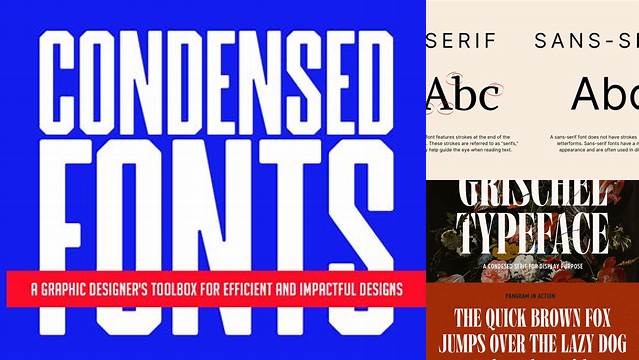
Top Free Condensed Serif Fonts For Designers
Choosing the right font can make or break a design. For projects needing a touch of elegance with space-saving efficiency, condensed serif fonts are a go-to. Luckily, you don't always have to shell out cash for great typography. Let's dive into some of the best free condensed serif fonts that can elevate your designs without emptying your wallet.
Condensed Serif Fonts: An Overview
Before we jump into the specifics, let's clarify what condensed serif fonts are and why they're so useful. Serif fonts are characterized by the small decorative strokes (serifs) at the end of letterforms. They often convey a sense of tradition, authority, and refinement. The term "condensed" refers to the narrower width of the letters compared to a regular typeface. This makes condensed serif fonts ideal for situations where space is limited, such as headlines, captions, and body text in magazines or newspapers. They allow you to fit more text into a smaller area without sacrificing readability. Ultimately, choosing the right font involves understanding the context of your project, the message you want to convey, and the overall aesthetic you're aiming for. Experiment with different options, and don't be afraid to mix and match fonts to create a unique and visually appealing design.
1. Free Condensed Serif Fonts for Headlines
Headlines need to grab attention quickly, and condensed serif fonts can help you do just that. The narrower letterforms allow you to create impactful headlines even in tight spaces. Look for fonts with strong, bold strokes and clear, legible letterforms. Some great options include Oswald (though technically sans-serif, it often gets used in similar contexts) and Bebas Neue (also sans-serif but tall and condensed, making it suitable for headlines). These fonts offer a modern yet authoritative feel, perfect for news websites, magazines, and posters. The key is to ensure that the headline remains readable at a glance. Avoid overly decorative or complex fonts that might hinder comprehension. Instead, focus on fonts with clean lines and a strong visual presence. Consider the overall tone of your project when selecting a headline font. A more traditional serif might be appropriate for a formal publication, while a bolder, more modern serif could work well for a contemporary design.
2. Best Free Condensed Serif Fonts for Body Text
Readability is paramount when choosing a condensed serif font for body text. You need a font that's easy on the eyes, even when reading long paragraphs. Look for fonts with generous x-heights (the height of the lowercase letters) and consistent letter spacing. Some excellent free options include Arimo and Lato (again, technically sans-serif but very readable and often used for body text). These fonts are designed for comfortable reading and provide a clean, modern look. Remember that body text should never be too distracting. The font should fade into the background, allowing the content to take center stage. Avoid fonts with overly ornate serifs or unusual letterforms. Simplicity and clarity are key. Before committing to a particular font, test it out with a sample paragraph to see how it looks both on screen and in print. Pay attention to the spacing between letters and lines, and adjust as needed to optimize readability.
3. Free Condensed Serif Fonts for Logos
A logo font needs to be distinctive and memorable while still representing your brand's identity. Condensed serif fonts can add a touch of sophistication and professionalism to your logo. Consider fonts like Playfair Display (though not strictly condensed, its elegant serifs and relatively narrow proportions can work well) or Montserrat (sans-serif, but a versatile choice for modern logos). These fonts offer a balance of style and readability, making them suitable for various logo designs. The font you choose should reflect your brand's personality and values. A classic serif might be appropriate for a traditional business, while a more modern serif could work well for a tech company. It's also important to ensure that your logo looks good in both large and small sizes. Test your logo font on different backgrounds and in various applications to ensure it remains legible and impactful. Ultimately, your logo is the face of your brand, so choose a font that represents you well.
4. Modern Free Condensed Serif Fonts
For a contemporary feel, explore modern free condensed serif fonts that offer clean lines and a minimalist aesthetic. These fonts often feature geometric shapes and subtle variations in stroke weight. They can add a touch of sophistication to your designs without feeling dated. Some excellent choices include fonts inspired by the Bauhaus movement or the Swiss design style. These fonts emphasize simplicity, clarity, and functionality. When using modern serif fonts, pay attention to the overall layout and composition of your design. Clean lines and ample white space can enhance the modern feel. Avoid clutter and unnecessary ornamentation. Instead, focus on creating a visually balanced and harmonious design. Modern serif fonts can be particularly effective for websites, branding materials, and editorial layouts.
5. Classic Free Condensed Serif Fonts
If you're aiming for a timeless and elegant look, classic free condensed serif fonts are the way to go. These fonts evoke a sense of tradition and authority, making them suitable for formal publications, invitations, and historical projects. Look for fonts with graceful serifs and balanced proportions. Some examples include variations of Times New Roman or Garamond (though finding truly free and condensed versions might require some digging). These fonts have stood the test of time and continue to be popular choices for their readability and aesthetic appeal. When using classic serif fonts, consider the historical context of your project. Choose a font that aligns with the period you're trying to represent. Pay attention to details such as kerning and letter spacing to ensure optimal readability. Classic serif fonts can add a touch of sophistication and elegance to any design.
6. Bold Free Condensed Serif Fonts
Need to make a statement? Bold free condensed serif fonts can help you command attention. These fonts feature thick strokes and strong letterforms, making them ideal for headlines, posters, and advertising materials. Look for fonts with a high contrast between the thick and thin strokes for maximum impact. Some great options include Impact (though technically sans-serif) or a bold version of a condensed serif like Oswald. These fonts are designed to grab attention and convey a sense of urgency or importance. When using bold serif fonts, be mindful of the overall balance of your design. Avoid using too much bold text, as it can become overwhelming. Instead, use it sparingly to highlight key words or phrases. Consider the color and background of your design as well. Bold fonts often work best against a contrasting background. They can add a powerful visual element to any project.
7. Light Free Condensed Serif Fonts
For a more subtle and refined look, light free condensed serif fonts are an excellent choice. These fonts feature thin strokes and delicate letterforms, creating a sense of elegance and sophistication. They're ideal for body text, captions, and minimalist designs. Look for fonts with a generous x-height to ensure readability, even at small sizes. Some examples include a light version of Montserrat or Raleway (sans-serif, but often used in similar contexts). These fonts are designed to be easy on the eyes and provide a clean, modern look. When using light serif fonts, pay attention to the contrast between the text and the background. Light fonts can easily disappear against a light background, so choose a color that provides sufficient contrast. Consider the overall tone of your project as well. Light fonts are often associated with elegance, sophistication, and minimalism.
8. Narrow Free Condensed Serif Fonts
When space is at a premium, narrow free condensed serif fonts are your best friend. These fonts feature extremely condensed letterforms, allowing you to fit more text into a limited area. They're ideal for headlines, captions, and sidebars. Look for fonts that maintain readability even at their narrowest widths. Some options include condensed versions of Arial or Helvetica (sans-serif, but useful for comparison). These fonts are designed to maximize space efficiency without sacrificing legibility. When using narrow serif fonts, pay attention to the spacing between letters and lines. Tight spacing can make the text difficult to read, so adjust as needed to optimize readability. Consider the overall layout of your design as well. Narrow fonts can be particularly effective for creating visual hierarchy and directing the reader's eye.
- Most importantly, have fun!
30. Future Trends in Free Condensed Serif Fonts
Looking ahead, the future trends in free condensed serif fonts are likely to be influenced by advancements in technology and design aesthetics. We can expect to see more variable fonts, which allow for greater flexibility and customization. Variable fonts enable designers to adjust various font properties, such as weight, width, and slant, using a single font file. This can improve website performance and create more dynamic and responsive typography. We can also expect to see more fonts designed specifically for use on screens, with improved readability and rendering. As mobile devices become increasingly prevalent, mobile-friendly fonts will continue to be in high demand. Keep an eye out for innovative font designs that push the boundaries of typography and challenge traditional conventions.